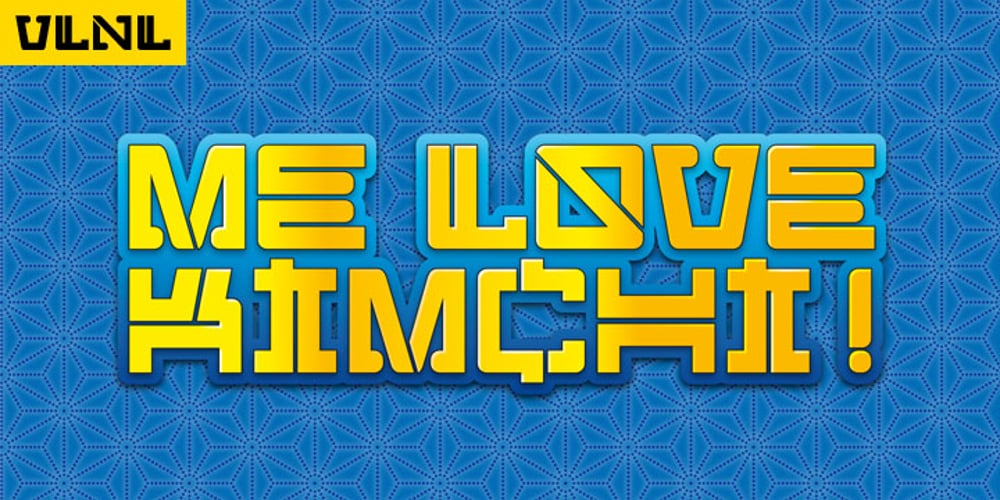
VLNL Kimchi Font Family was designed by Henning Brehm and published by VetteLetters. VLNL Kimchi contains 1 styles and family package options. The Kimchi font had its starting point in the making of the film “Cloud Atlas”, based on the novel by David Mitchell and directed by Lana & Andy Wachowski and Tom Tykwer. A first version of Kimchi was created for “Papa Song” – an underground fast food restaurant in a futuristic Neo Seoul in the year 2144. It was used for the menus, advertisement and packaging. Kimchi was later further developed to become a useable typeface: it works for headlines, street art stencils and of course as logo font for korean fast food restaurants.